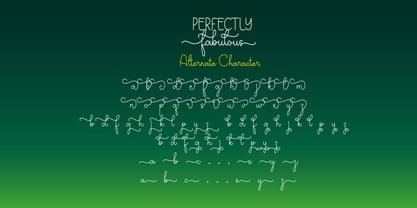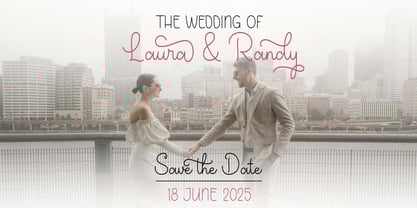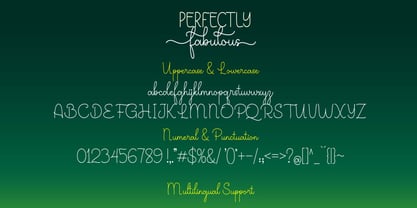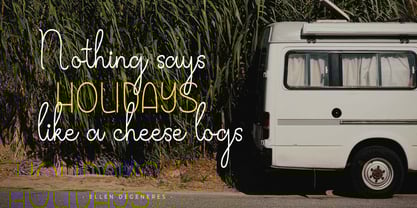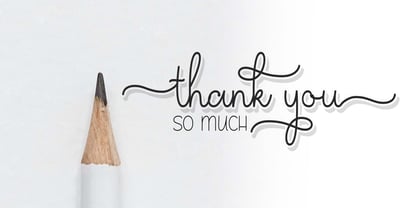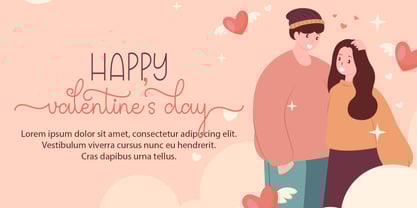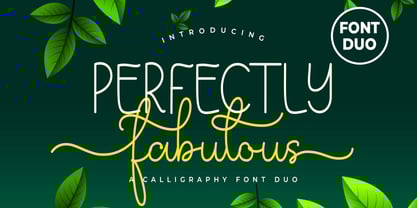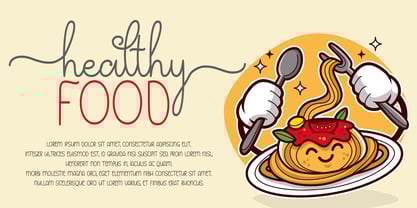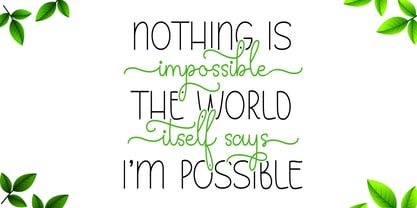
Perfectly Fabulous
by Doehantz Studio
The Perfectly Fabulous Font Family was designed by Abduhan Fikhri and published by Doehantz Studio. Perfectly Fabulous contains 2 styles and family package options. More about this family
Introducing "Perfectly Fabulous", the dynamic font duo that brings together a chic script and a clean sans font. Enjoy the enchanting blend of elegance and versatility that this unique pairing offers. The script, with its fluid curves and compelling letters, is perfectly counterpointed by the sans font, showcasing sophisticated simplicity. Ideal for design projects that demand captivating creativity, "Perfectly Fabulous" promises a breathtaking typographical experience.
Designers: Abduhan Fikhri
Foundry: Doehantz Studio